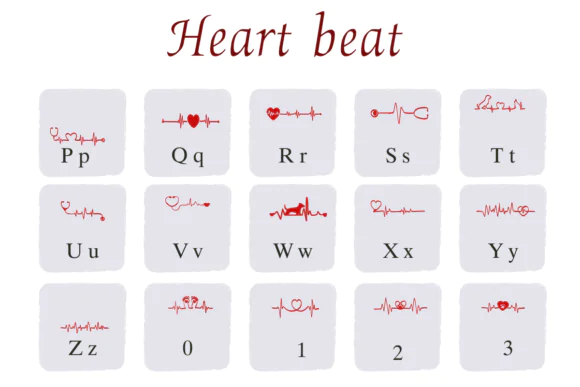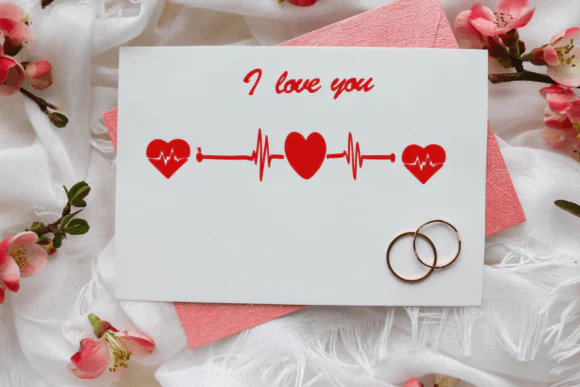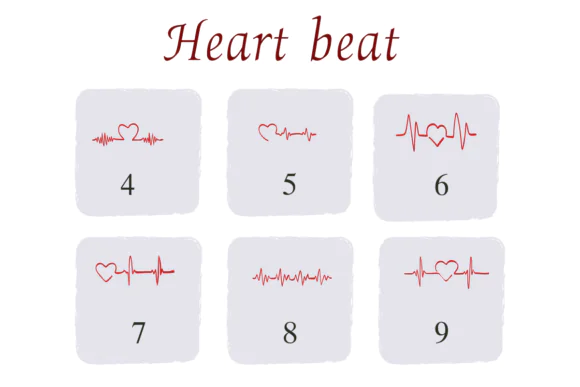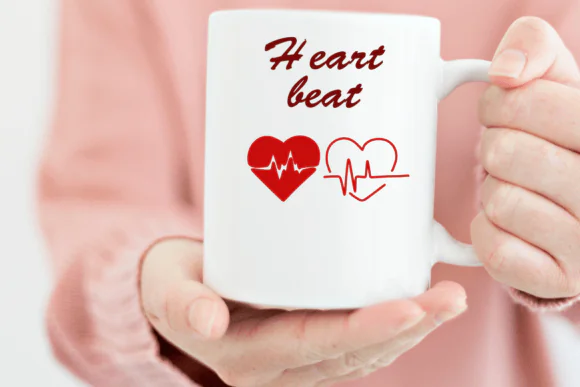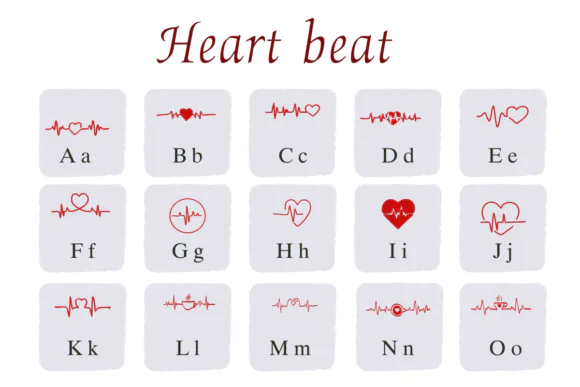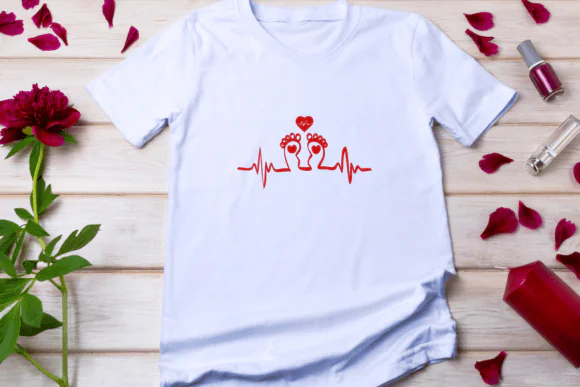
Heart Beat Dingbat Font | Romantic Heartbeat Line Typeface for Love Designs, Valentine Projects, Greeting Cards, Stickers, Apparel, Mugs & Whimsical Creative Graphics
Add love, rhythm, and playful emotion to your creative projects with Heart Beat Font, a special dingbat font filled with heartbeat-inspired decorative characters. Each character has its own unique rhythm, bringing a pulse of romance, excitement, and charm to your designs.
Heart Beat Font is perfect for designers, crafters, stationery creators, print-on-demand sellers, small business owners, social media designers, and digital product creators who want to create romantic, cute, and expressive artwork. Its heart-shaped beat style makes it ideal for love-themed projects, Valentine’s Day designs, couple gifts, greeting cards, stickers, mugs, apparel, wall art, invitations, planner decorations, and social media graphics.
Use Heart Beat Font to create romantic quote designs, Valentine cards, love stickers, couple t-shirts, heart-themed mugs, wedding stationery, anniversary gifts, scrapbook pages, handmade cards, printable wall art, and cute digital designs. Its whimsical heartbeat look helps ordinary layouts feel more emotional, lively, and memorable.
Whether you are creating a sweet Valentine product, a romantic greeting card, a love quote poster, or a playful social media post, Heart Beat Font adds a charming pulse of love to every design.
• Valentine’s Day designs
• Love quote graphics
• Greeting cards
• Romantic stickers
• Couple t-shirts
• Mug designs
• Anniversary gifts
• Wedding stationery
• Invitations
• Wall art prints
• Planner decorations
• Scrapbooking
• Social media posts
• Printable crafts
• Heart-themed merchandise
Key Style Features
• Heartbeat-themed dingbat font
• Playful heart-shaped rhythm characters
• Romantic and whimsical appearance
• Great for love and Valentine projects
• Perfect for cards, stickers, mugs, and apparel
• Adds emotion and movement to designs
• Suitable for print and digital projects
• Easy decorative font for creative layouts